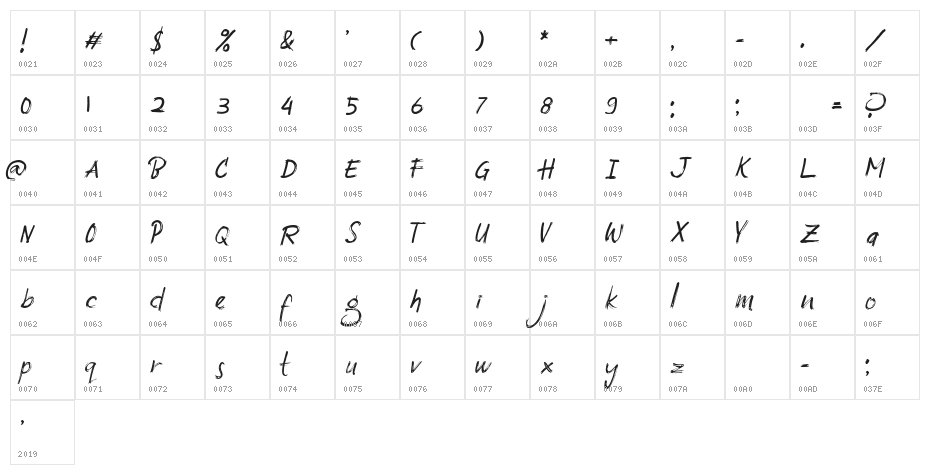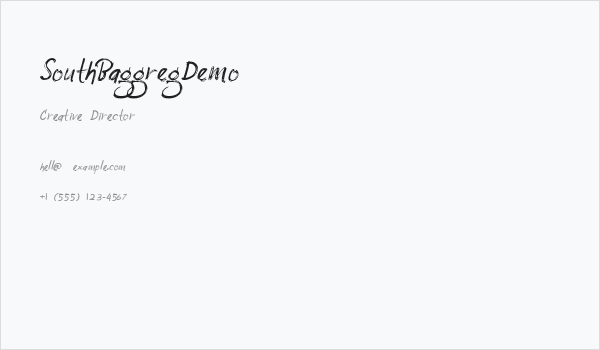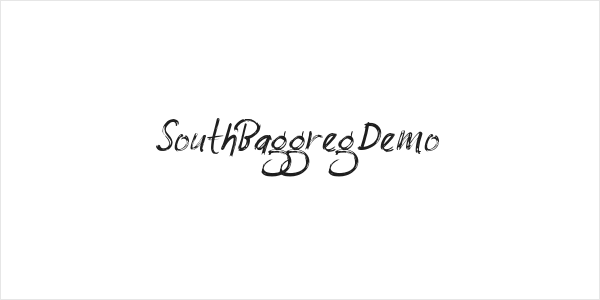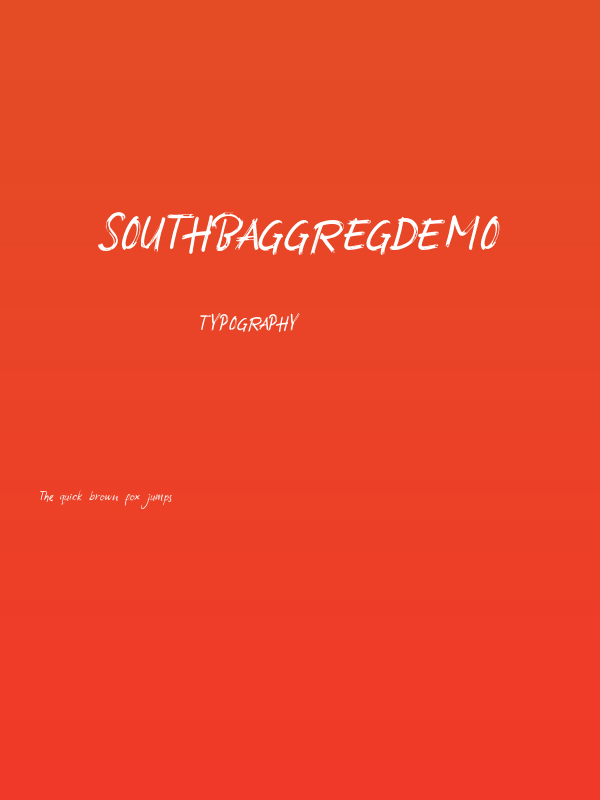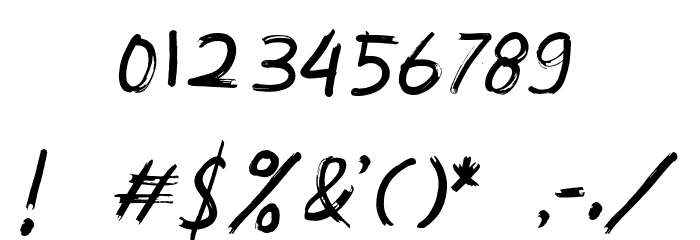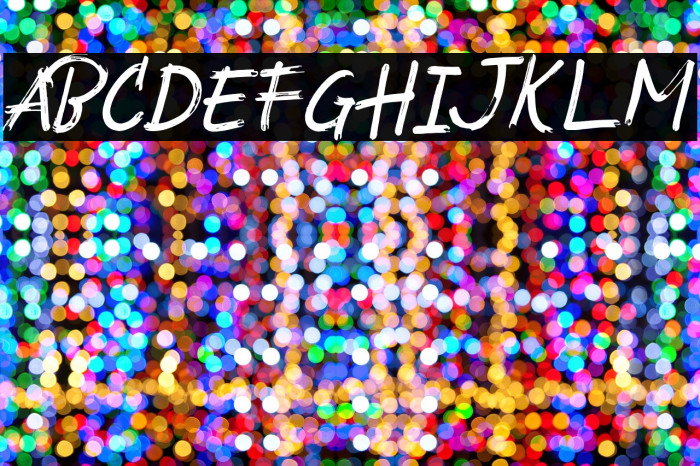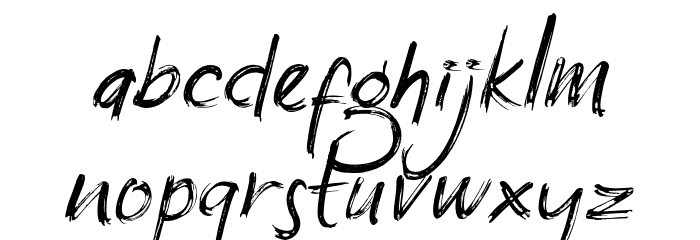
SouthBaggregDemo Font
SouthBaggregDemo Description
This font features a dynamic and expressive brush script style, characterized by its bold and energetic strokes. The letters have a hand-drawn appearance, with varying thicknesses that create a sense of movement and spontaneity. The uppercase letters are tall and slightly slanted, while the lowercase letters maintain a consistent flow, enhancing the font's casual and artistic feel. The numbers and special characters follow the same brush-like aesthetic, making them cohesive with the overall design. This font's unique style is perfect for projects that require a personal and creative touch.
| Proposed Projects | Ideal for branding, posters, invitations, and artistic projects that require a personal touch. |